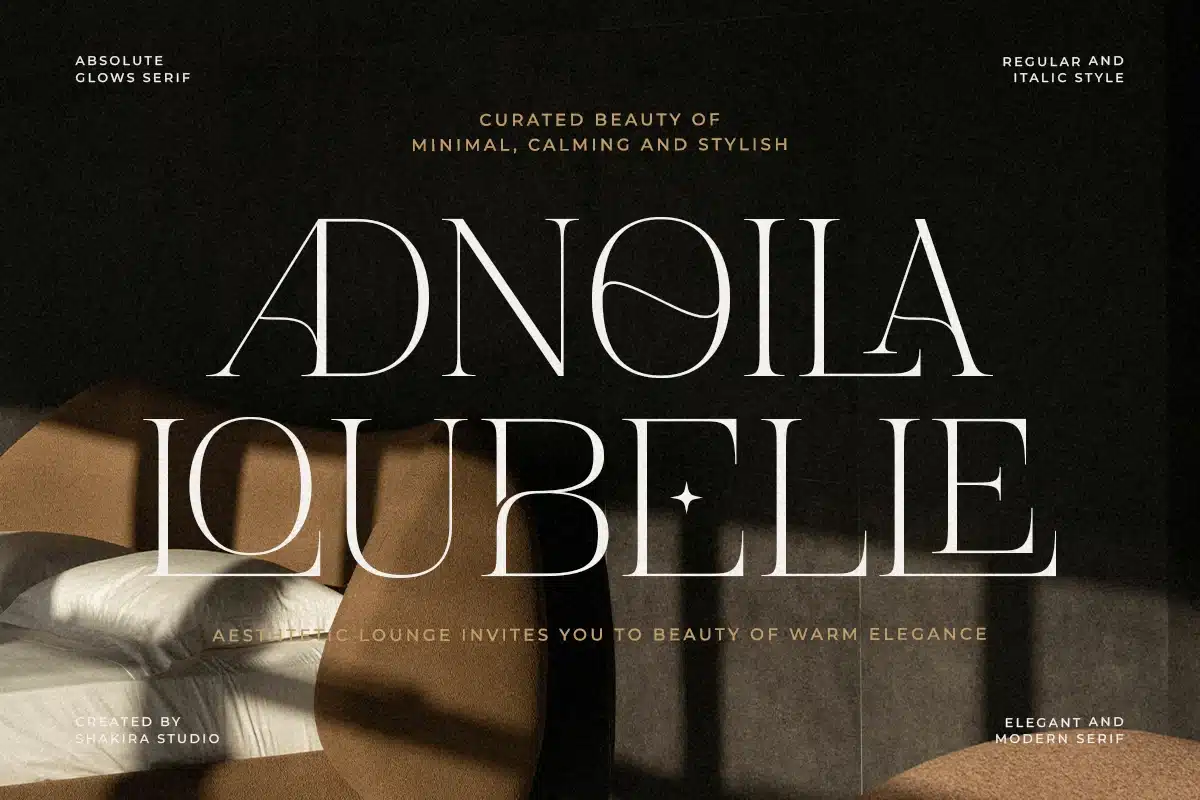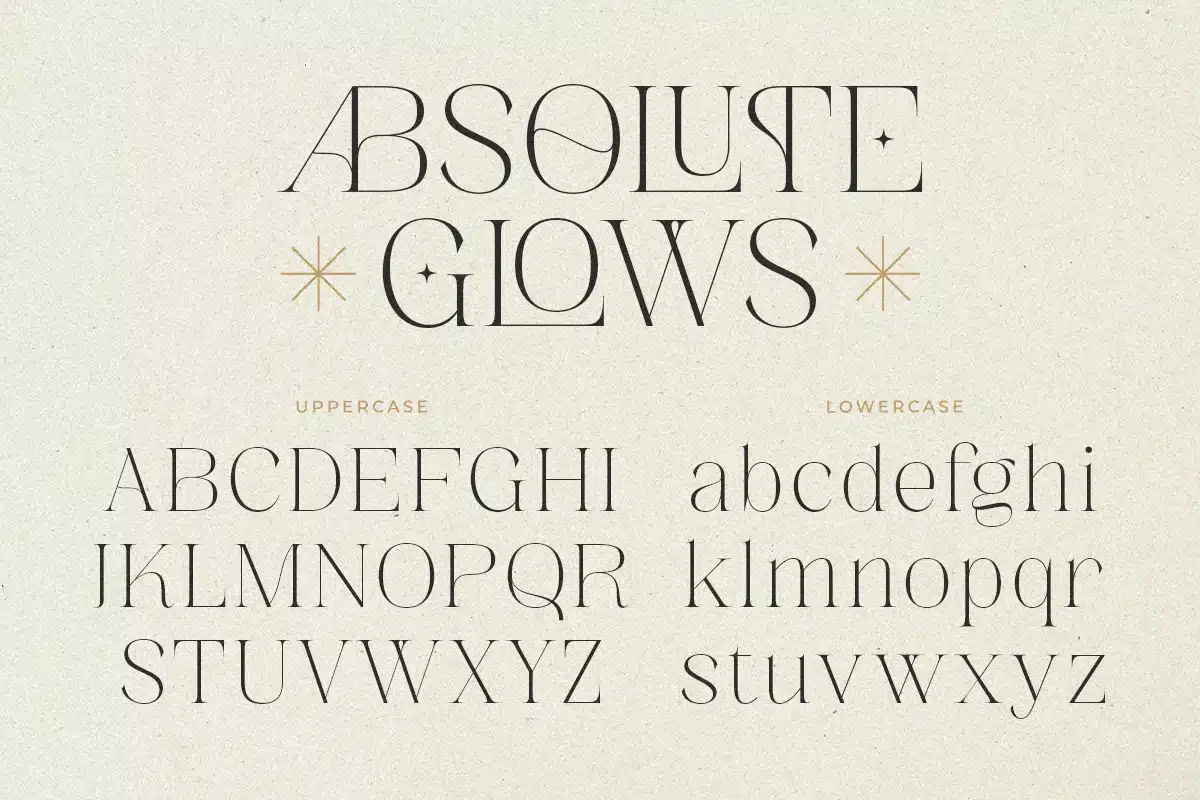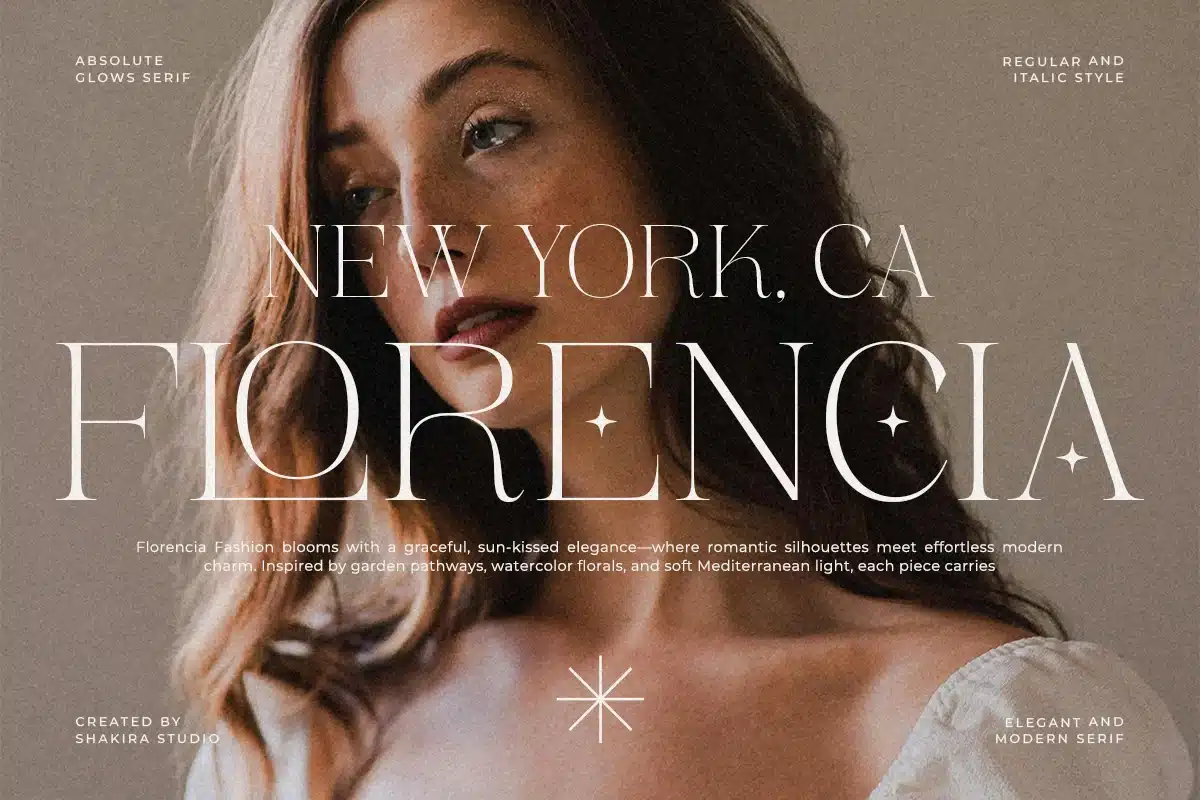
Modern Elegant Branding Serif – Absolute Glows Font
Absolute Glows is a refined modern serif typeface crafted with graceful contrast, luxurious proportions, and stylish elegance. Designed to deliver a polished premium look, it is ideal for upscale branding and editorial layouts.
Its sophisticated letterforms make it perfect for logos, fashion labels, boutique packaging, invitations, and magazine covers.
Absolute Glows helps creatives produce timeless visuals with strong luxury appeal.
Features
- Uppercase & lowercase
- Alternates & ligatures
- Professional kerning
- Regular & Italic
Luxury branding, boutique logos, packaging design, invitations, editorial layouts, fashion advertising